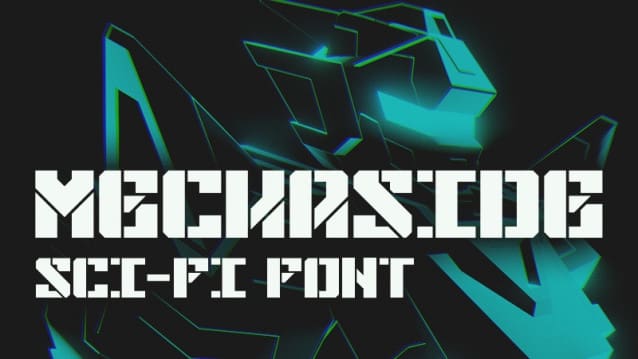
Mechaside Display Font
Mechaside Display Font is a typeface that works well for sci-fi themes, mecha/robots, technology, video games, etc. Made with geometric shapes and stenciled cuts in several places.